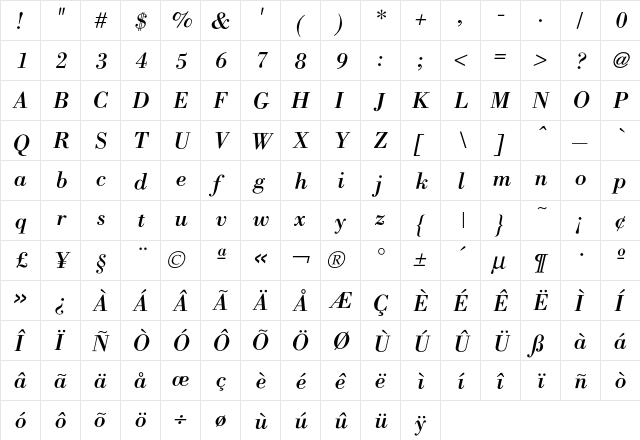
BodoniICG Italic
Design Context for BodoniICG Typeface
BodoniICG offers clean, dependable letterforms without strong stylistic allegiance, making it a practical choice for designers who need flexibility. The dynamic lean of this cut emphasises speed and emphasis in any layout.
Pro Tip: Try BodoniICG for annotation and caption copy alongside an upright companion — the contrast in angle creates a dynamic but ordered typographic system.